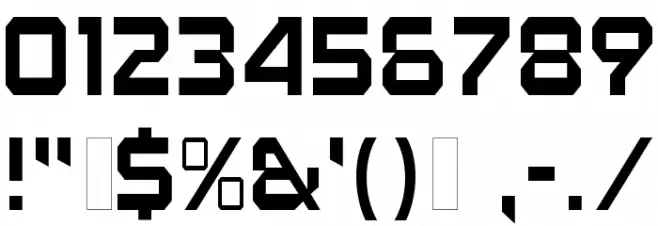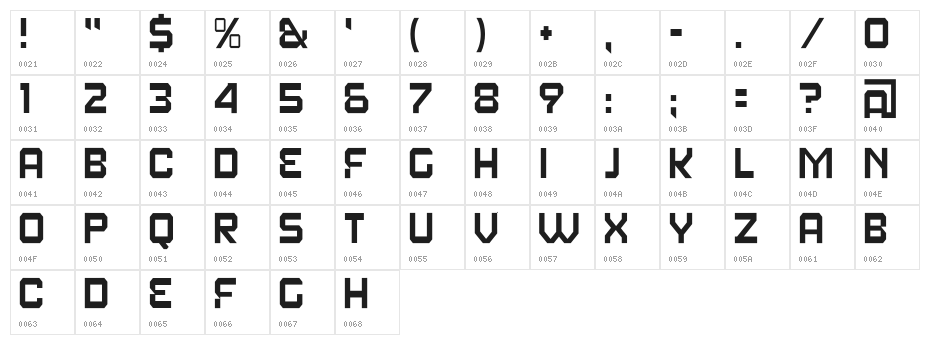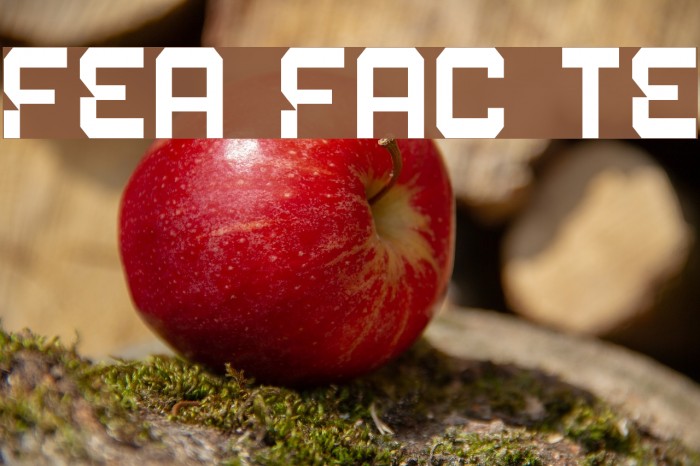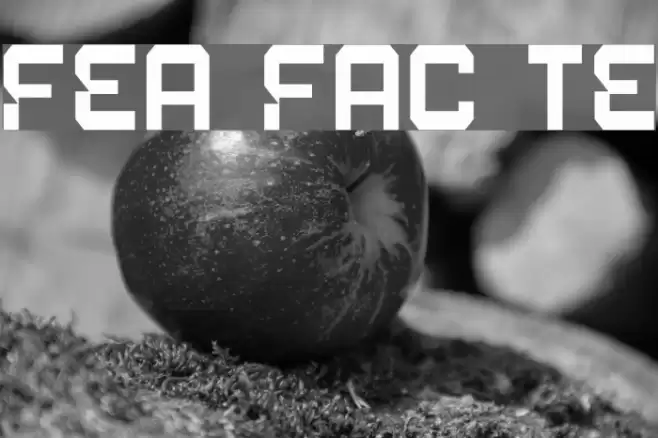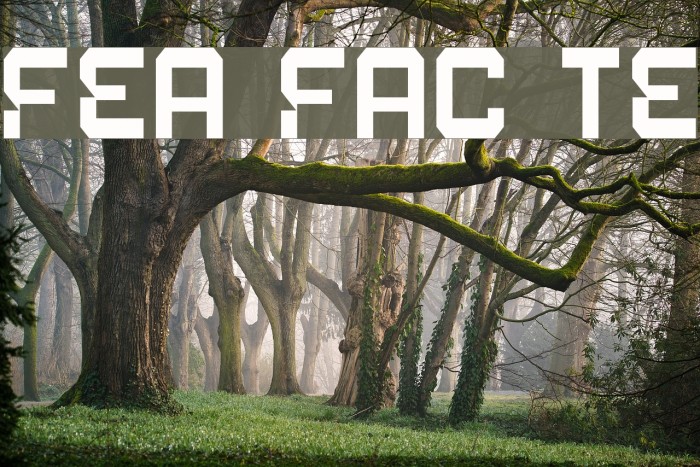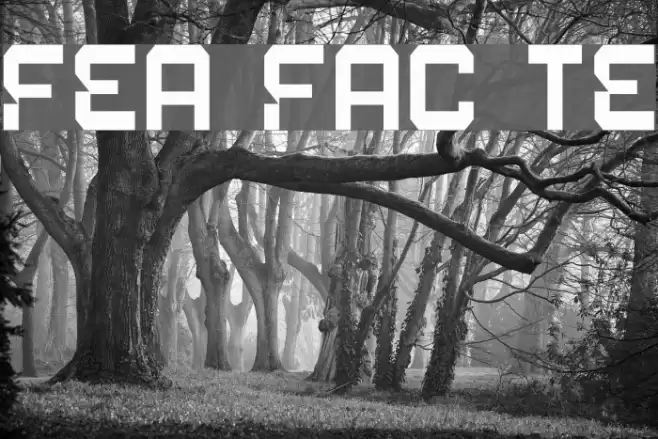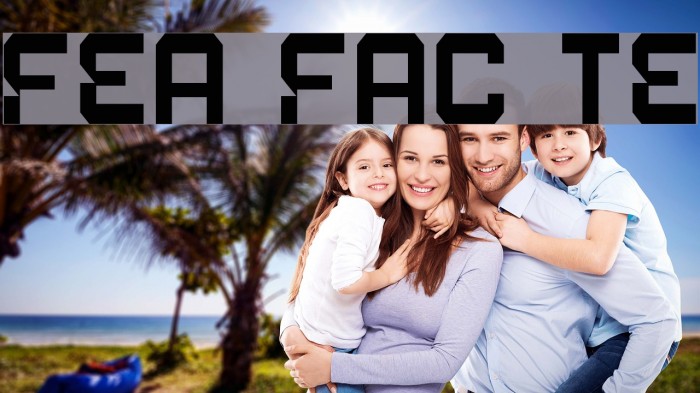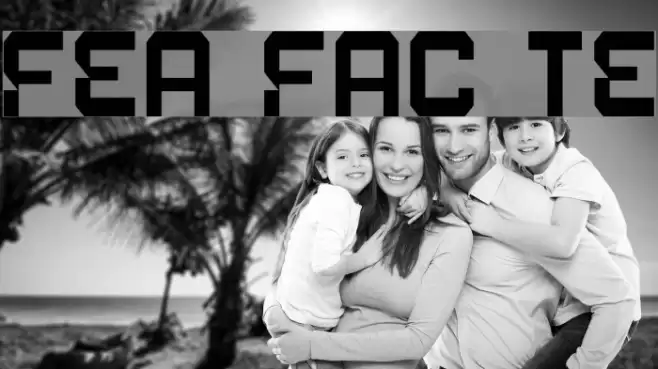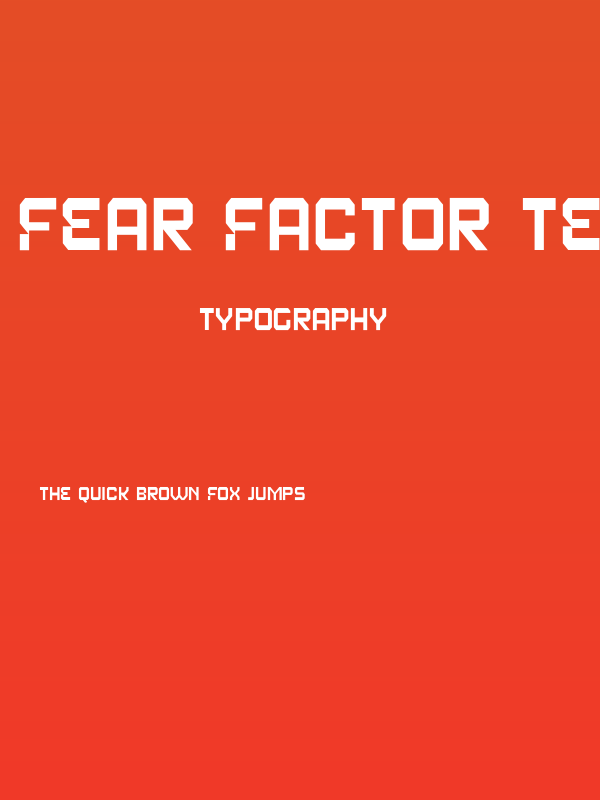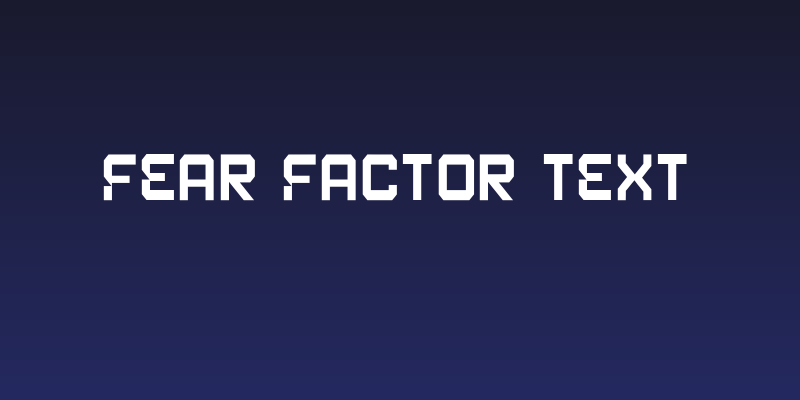
Fear Factor Text Font
Fear Factor Text Description
This font features a bold, geometric design with a strong, angular appearance. The characters are constructed with sharp edges and a block-like structure, giving it a futuristic and industrial feel. The uppercase letters are uniform in height, while the numerals maintain a consistent style that complements the alphabet. The special characters are distinct and maintain the overall aesthetic, ensuring readability and visual impact. This font is ideal for projects that require a modern and edgy look, such as technology branding, video game titles, or sci-fi themed designs.
Proposed ProjectsTechnology branding, video game titles, sci-fi themed designs.